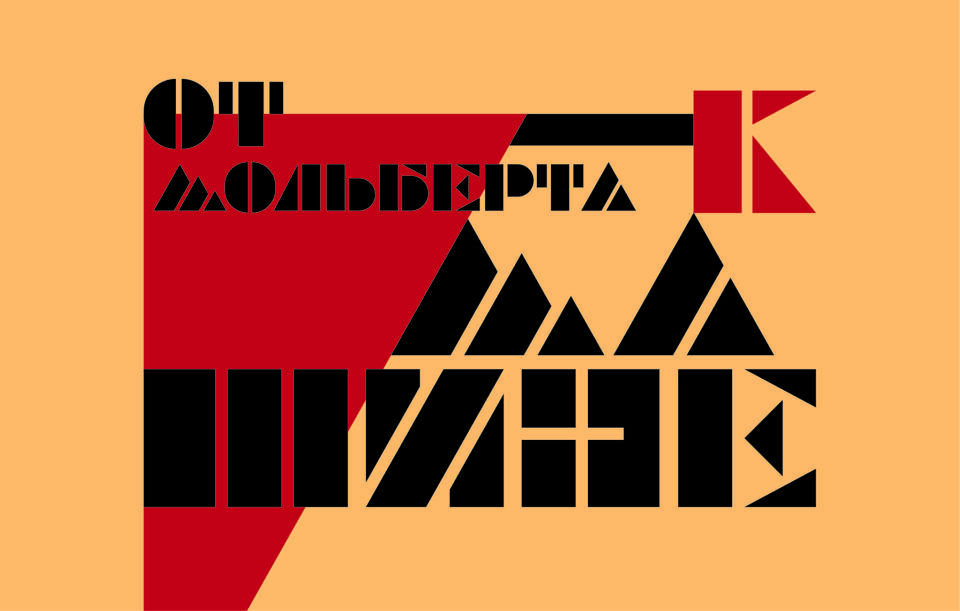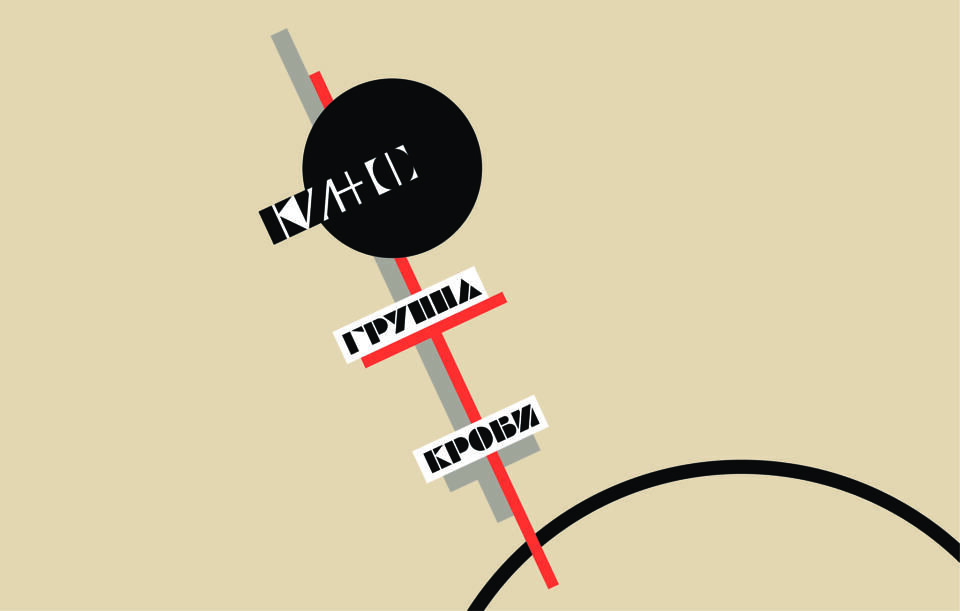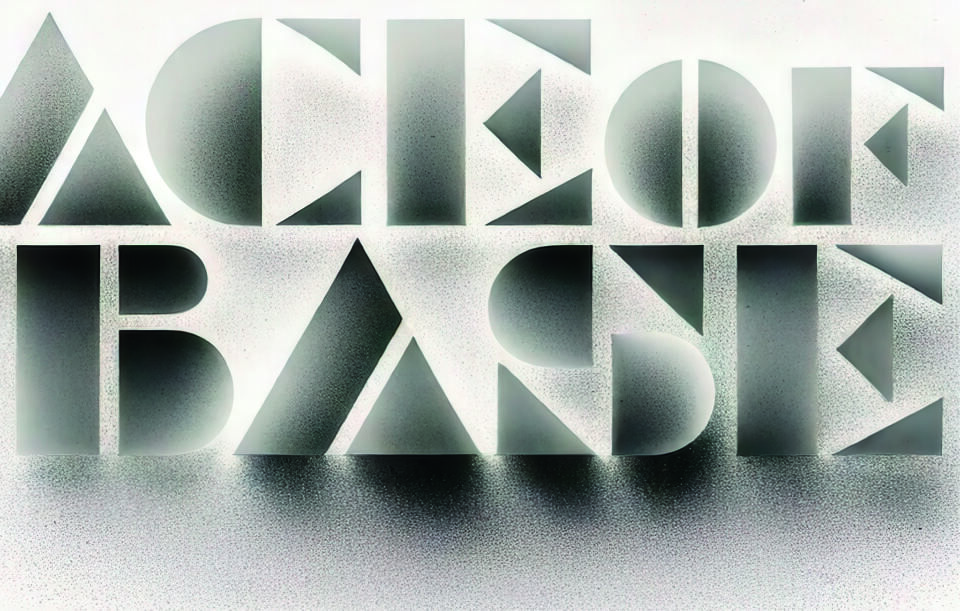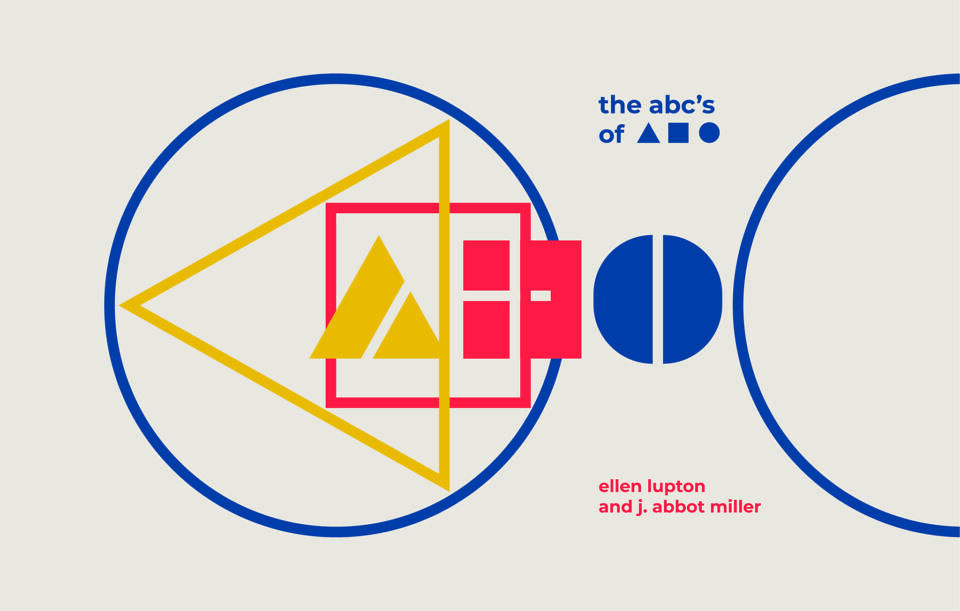
Vaganov SP Font
Vaganov SP is a geometric display font inspired by the aesthetics of Russian avant-garde, constructivism, and 1920s typography.
It features strict modular forms built from simple geometric shapes: triangles, squares, and semicircles. The font captures the spirit of the machine age and graphic radicalism, evoking associations with propaganda posters, VKhUTEMAS architecture, and industrial utopianism.
Vaganov SP is ideal for designing exhibitions, art catalogs, theater posters, contemporary posters, and branding that references the era of constructivist modernism.